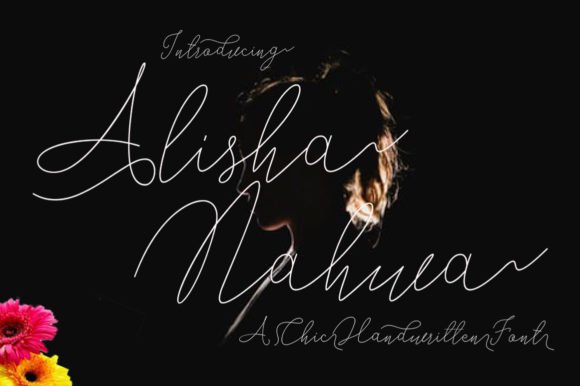
Get Ready to Unleash Your Creativity with the Alisha Nahwa Font
Have you ever stared at a blank page, searching for the perfect font to bring your creative vision to life? That’s exactly where I was when I stumbled upon the Alisha Nahwa Font – a beautiful, handwritten script that’s as versatile as it is charming. Its gorgeous swashes and ligatures make it the perfect choice for designers, crafters, and social media enthusiasts alike.
With the Alisha Nahwa Font, you’ll be able to add a personal touch to your DIY projects, Instagram posts, and even wedding invitations. Its PUA encoded design makes it easy to access all the cute glyphs and swashes, giving you endless possibilities for creative expression. Whether you’re a seasoned designer or a crafty beginner, this font is sure to become your new best friend.
- Font Family: Alisha Nahwa is a beautiful, elegant script font designed for various applications.
- Unique Characteristics: Alisha Nahwa features flowing connections between letters, giving it a handwritten feel, and is ideal for creating elegant, sophisticated designs.
- Font Style: This font comes in both regular and italic styles, providing versatility for different design needs.
Alisha Nahwa Font Review
- Cultural Significance**: The Alisha Nahwa Font is inspired by Indian script, which is a nice touch for designers looking to incorporate cultural elements into their work.
- Unique Design**: The font’s unconventional design is sure to stand out and grab attention.
- High-Quality Renditions**: The font’s high-quality renditions make it a great choice for professional projects.
- Legibility Issues**: In some cases, the font’s unique design can make it difficult to read, especially at smaller sizes.
- Limited Character Set**: The font’s character set is limited, which may be a concern for designers who need to work with a wide range of languages or characters.
Overall, I’d say the Alisha Nahwa Font is a great choice for designers looking to add a touch of cultural flair to their work. However, it may not be the best choice for projects where legibility and character set are top priorities.
For best results, use Alisha Nahwa font for creative projects such as:
- Invitations and party decorations
- Wedding stationery and decorations
- Brand identity and logos
Alisha Nahwa font is perfect for projects that require a unique and elegant touch.